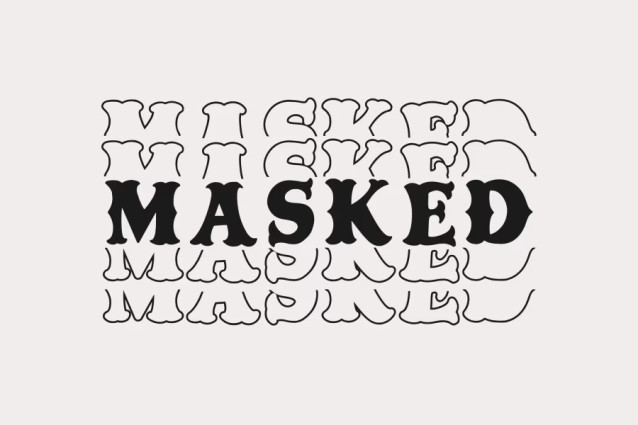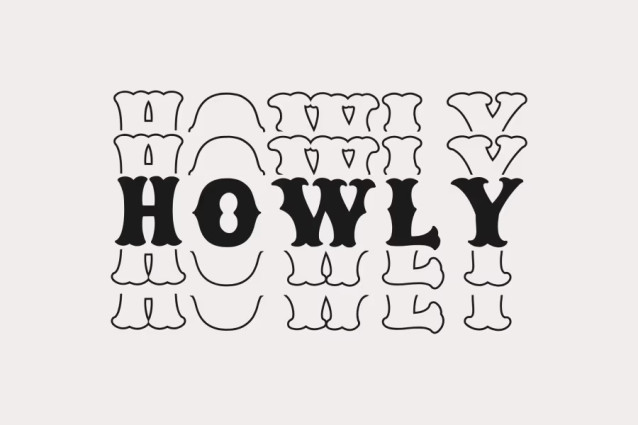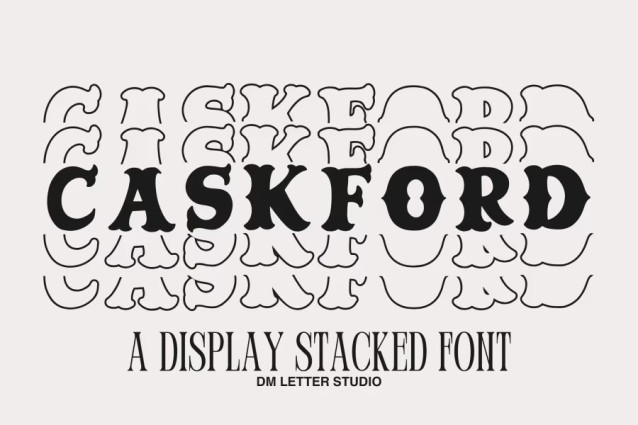
Caskford Stacked Font
Caskford Stacked Font is a vintage old western font built with a layered style that brings immediate impact to headlines and badges. Inspired by classic saloon signs and frontier typography, it delivers bold character with a dimensional, poster-ready look. Because the structure stays clean and balanced, it reads clearly at both small and large sizes. Use it for logos, badges, posters, labels, signage, apparel, and rustic branding. As a result, your designs feel strong, confident, and unmistakably Western.
Fast layouts with the Caskford Stacked Font
Start with short, bold words to let the effect shine. After that, add supporting text in a clean serif or sans font for contrast. Because Caskford Stacked has a strong presence, it works especially well in badges, arches, and centered layouts. In addition, it looks great on saloon-style signs, western labels, and retro stamp designs. Finally, try color pairs like black & gold, rust & cream, navy & ivory, or forest & tan to lock in the western mood.